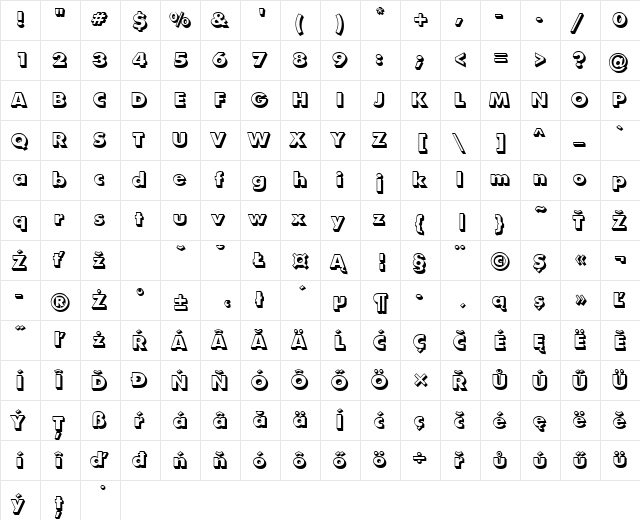
FuturaShaDEEExtBol Regular Font Preview
FuturaShaDEEExtBol Regular
Design Context for FuturaShaDEEExtBol Typeface
FuturaShaDEEExtBol channels digital-age aesthetics through its sharp, structured letterforms — ideal for brands that want to signal innovation.
Pro Tip: Use FuturaShaDEEExtBol in combination with a neutral sans for body text. Let it define the brand voice in headlines while keeping reading comfortable elsewhere.